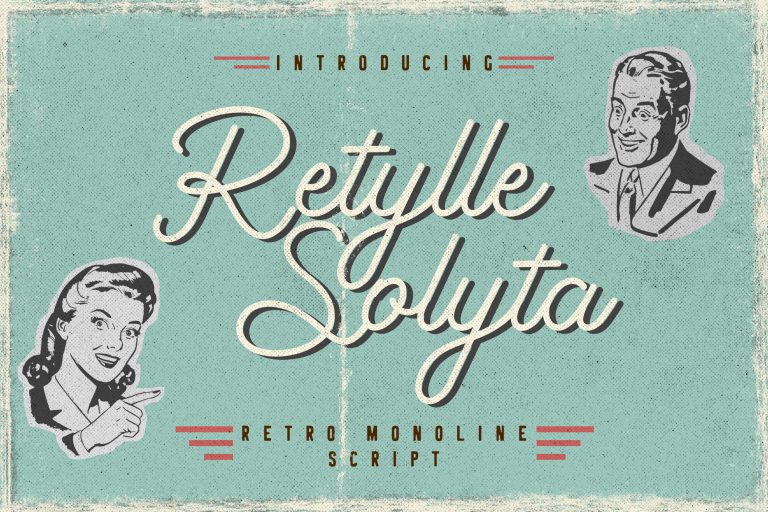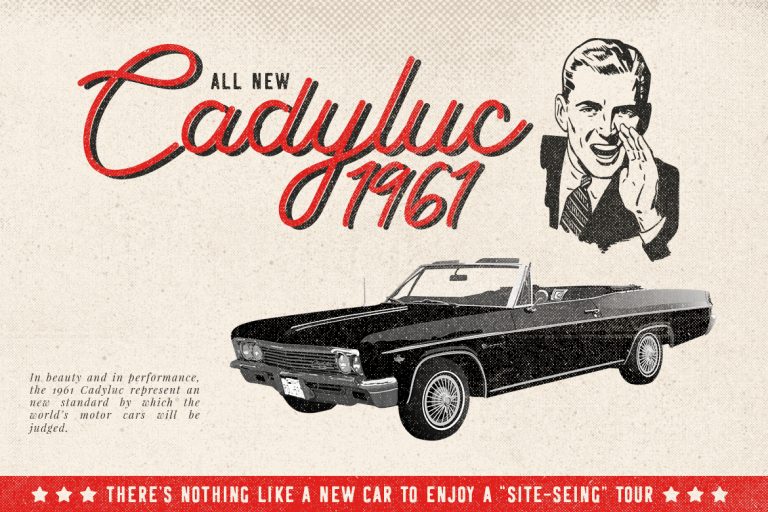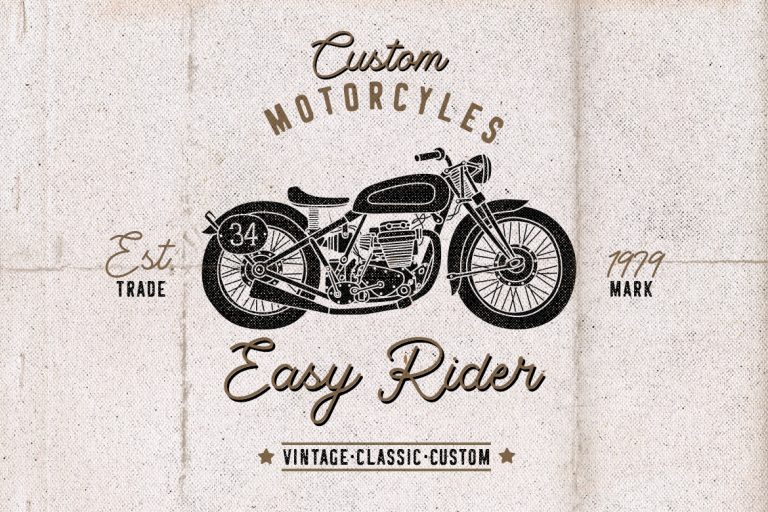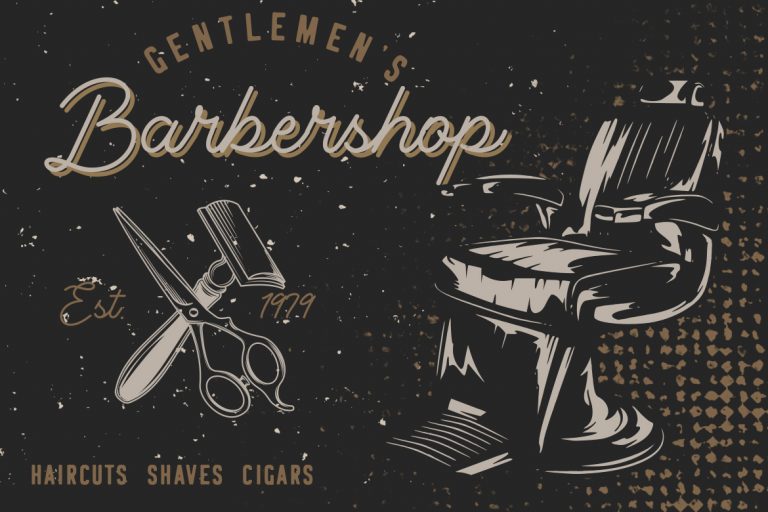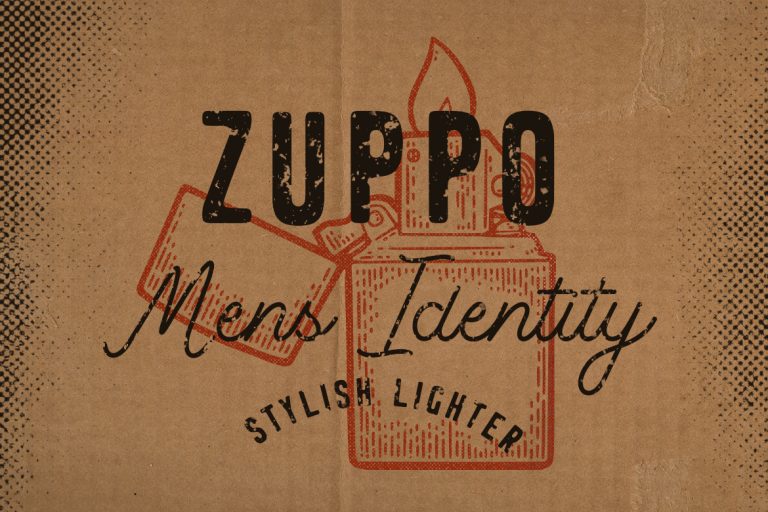
Retylle Solyta Monoline
Retylle Solyta is a beautiful monoline retro script font which would work for a wide variety of purposes and projects.
Retylle Solyta is perfect for branding projects, logo, wedding designs, social media posts, advertisements, product packaging, product designs, label, photography, watermark, invitation, stationery and any projects that need handwriting taste.
- Fonts include multilingual support for; ä ö ü Ä Ö Ü ß ¿ ¡